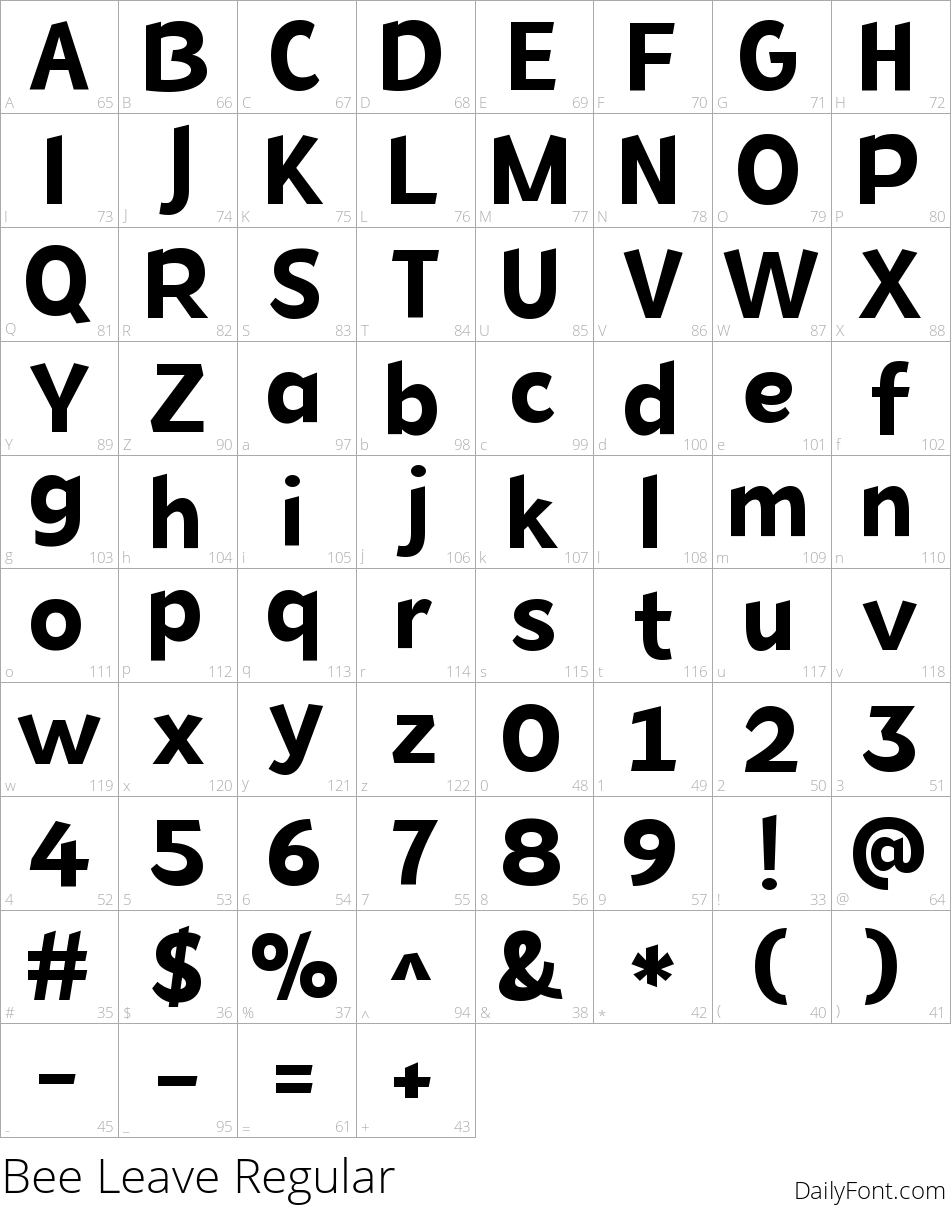
Bee Leave Regular
Looking for a bold and stylish display font that exudes modernity and sophistication? Look no further than Bee Leave, an extraordinary font designed to elevate your design projects to new heights. With its strong and striking features, this versatile font is perfect for creating eye-catching headings, logos, labels, and more.
Whether you're working on branding, wedding designs, or even invitations, Bee Leave's modern aesthetic ensures that your work will stand out from the crowd. Its unique character and flair make it an ideal choice for adding a touch of elegance to any design. Whether you need a font for a signature, logo, or label, Bee Leave is sure to impress.
This powerful display font is also highly versatile, making it suitable for a wide range of projects. From business branding to personal invitations, its modern look ensures that your work will be remembered.